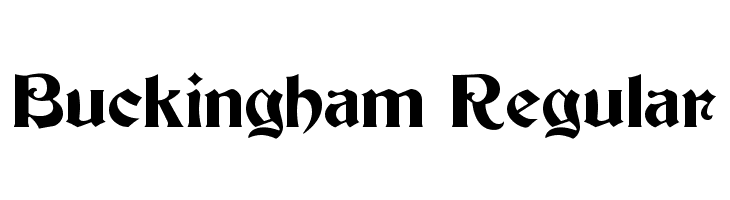
An ornate and whimsical decorative font with elaborate swirls.
( Fonts by LetterStock )
An ornate and decorative font with intricate swirls and high contrast.
( Fonts by Display Studio )
A bold, playful font with circular cutouts and a modern, quirky style.
( Fonts by Manfred Klein - manfred-klein.ina-mar.com )
A bold, artistic font with a cut-out style and high contrast, ideal for impactful designs.
A bold, decorative font with intricate patterns and a playful, dynamic style.
( Fonts by http://perso.calixo.net/~uzim/ )
A bold, decorative font with chaotic, liquid-like embellishments.